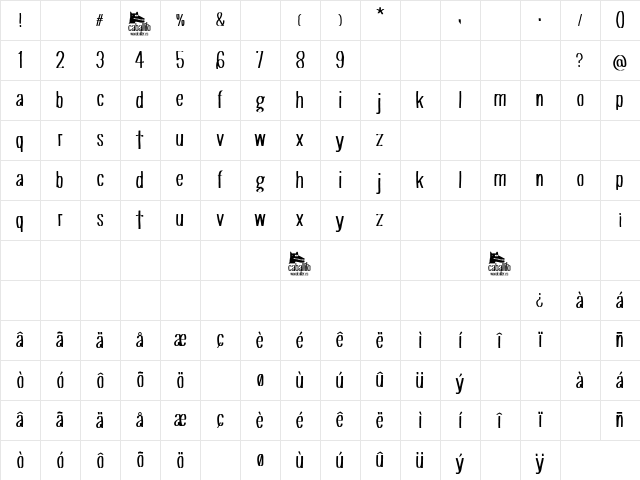
Caballito Regular Free Font
Caballito Regular
Designer: Jordi Manero Pascual
Design Context for Caballito
Caballito is a composed and adaptable typeface that performs quietly and consistently across a wide range of design contexts.